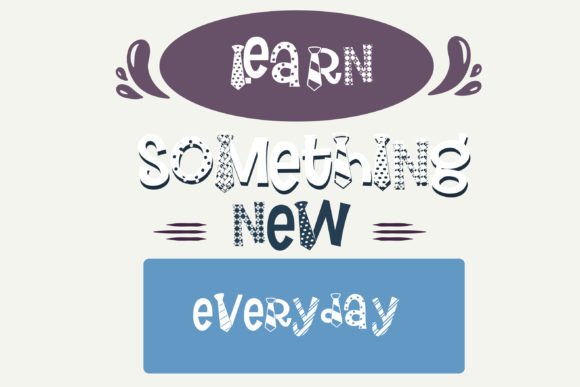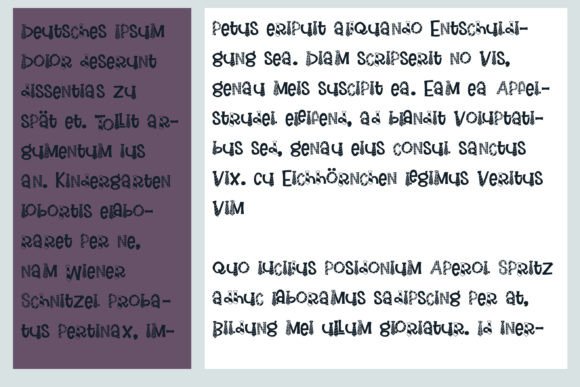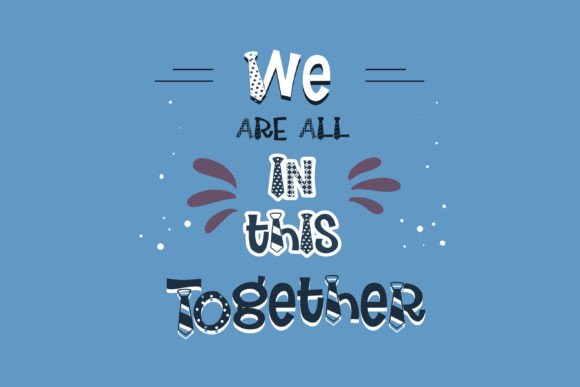
Introduction to Necktie Guy Font
Necktie Guy is a fun and quirky font without any fancy curls or loops.
It’s simple and easy to read, just like your favorite t-shirt But what makes it stand out are the tiny neckties scattered throughout each letter, giving it a playful and stylish vibe.
Key Features of Necktie Guy Font
Why Choose Necktie Guy Font?
Necktie Guy Font offers exceptional quality and versatility, making it a valuable addition to your design toolkit. Whether you’re creating for personal projects or commercial use, Necktie Guy Font delivers professional results.